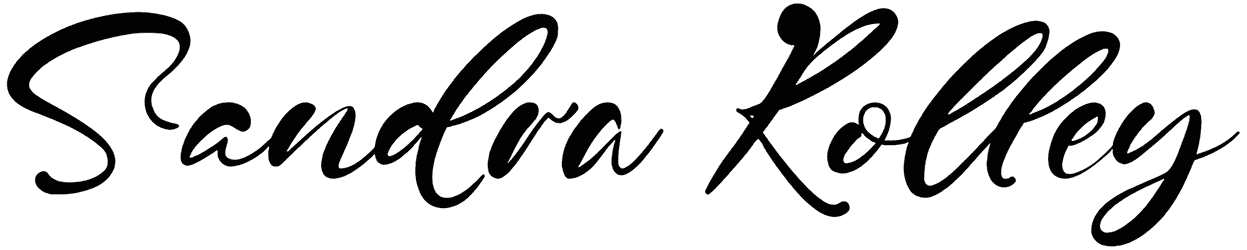
Sandra Rolley Font
In a world where everything is standardized and digitized, Sandra Rolley is a welcome respite from the mundane. This calligraphy font reminds us that there is still beauty in putting pen to paper, creating something truly unique.
The absence of numbers in this script font draws your attention to the pure beauty of the written word and allows you to try your hand at creating a masterpiece. So let your invitations, greeting cards, and packaging go where they are respected for their craftsmanship.